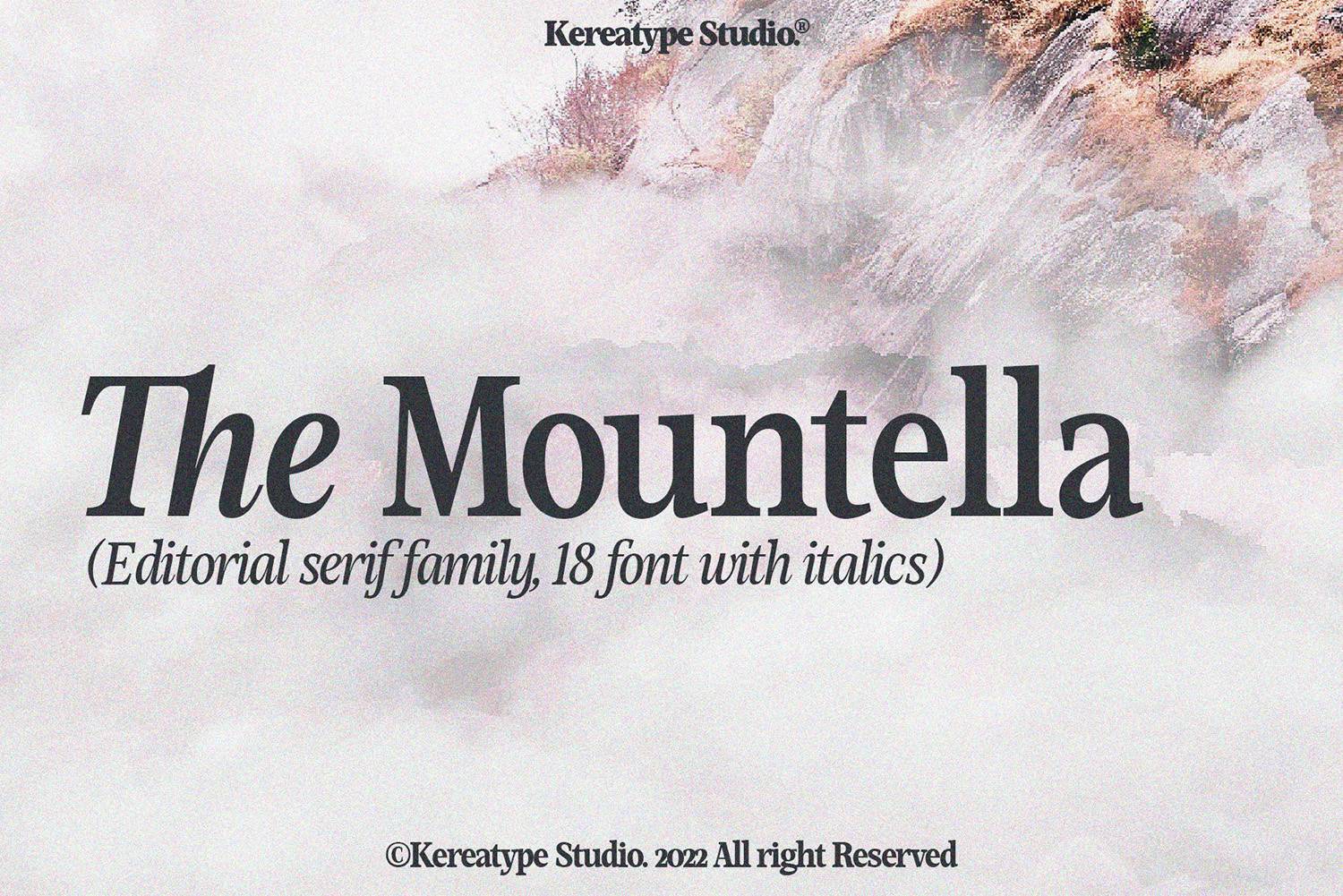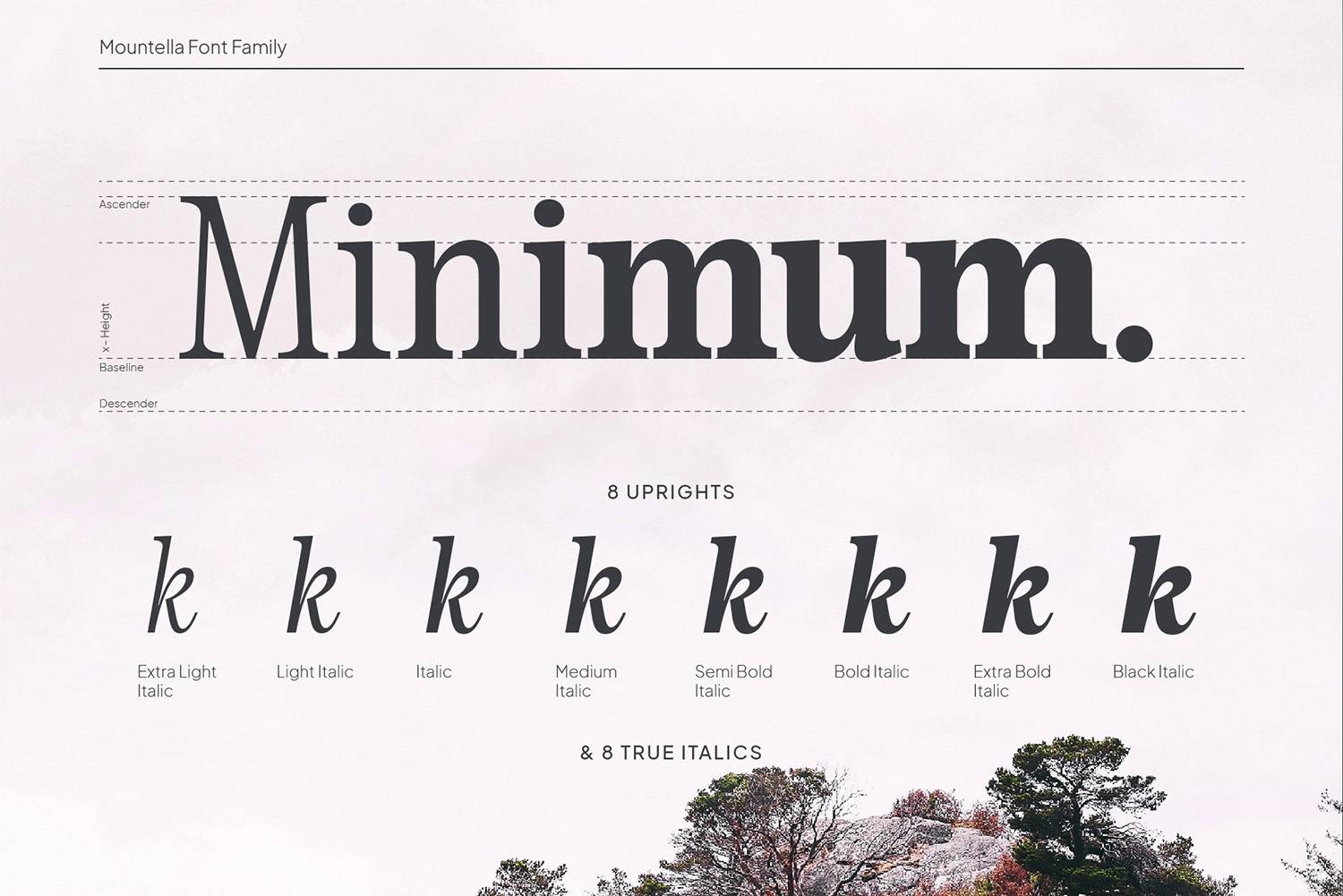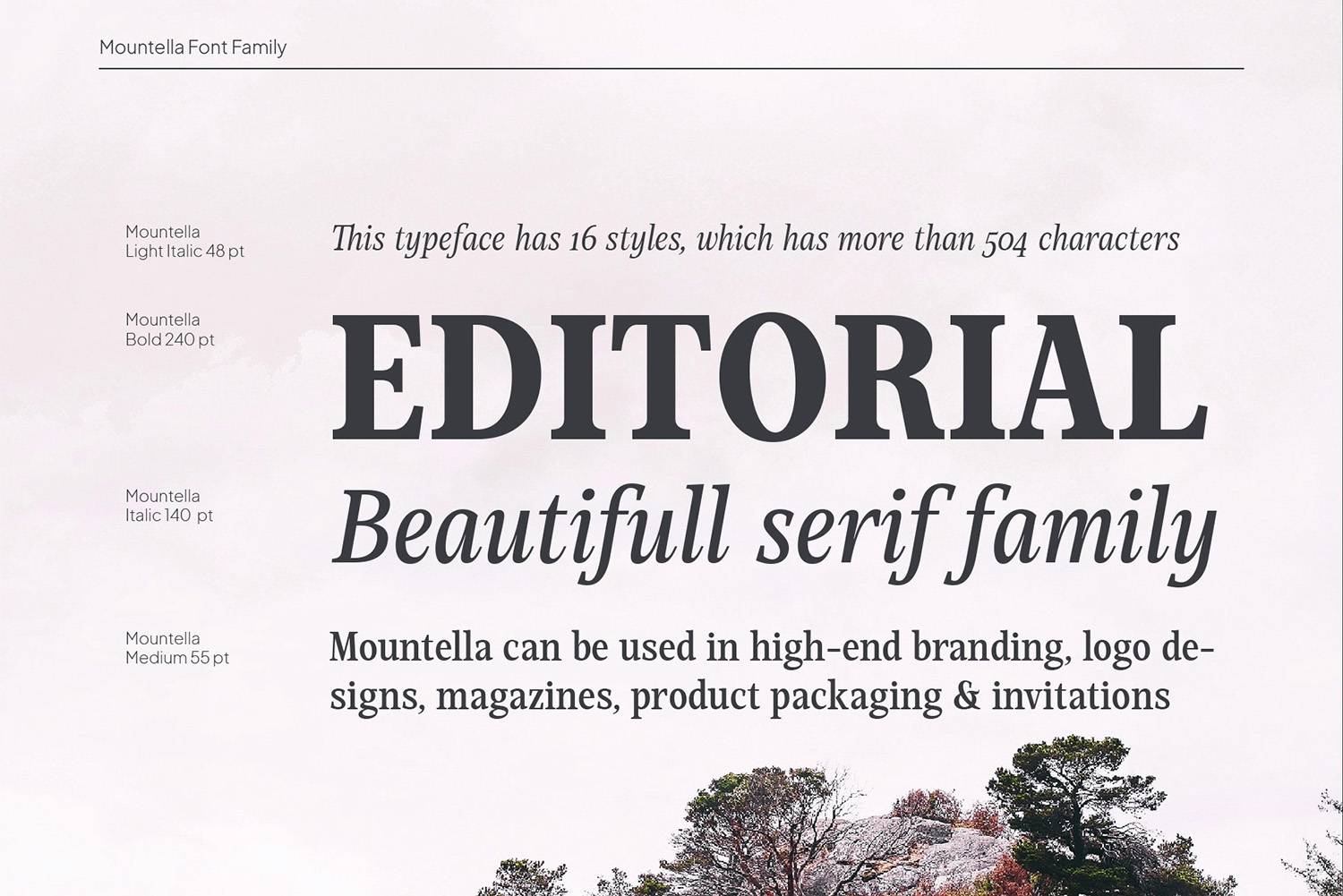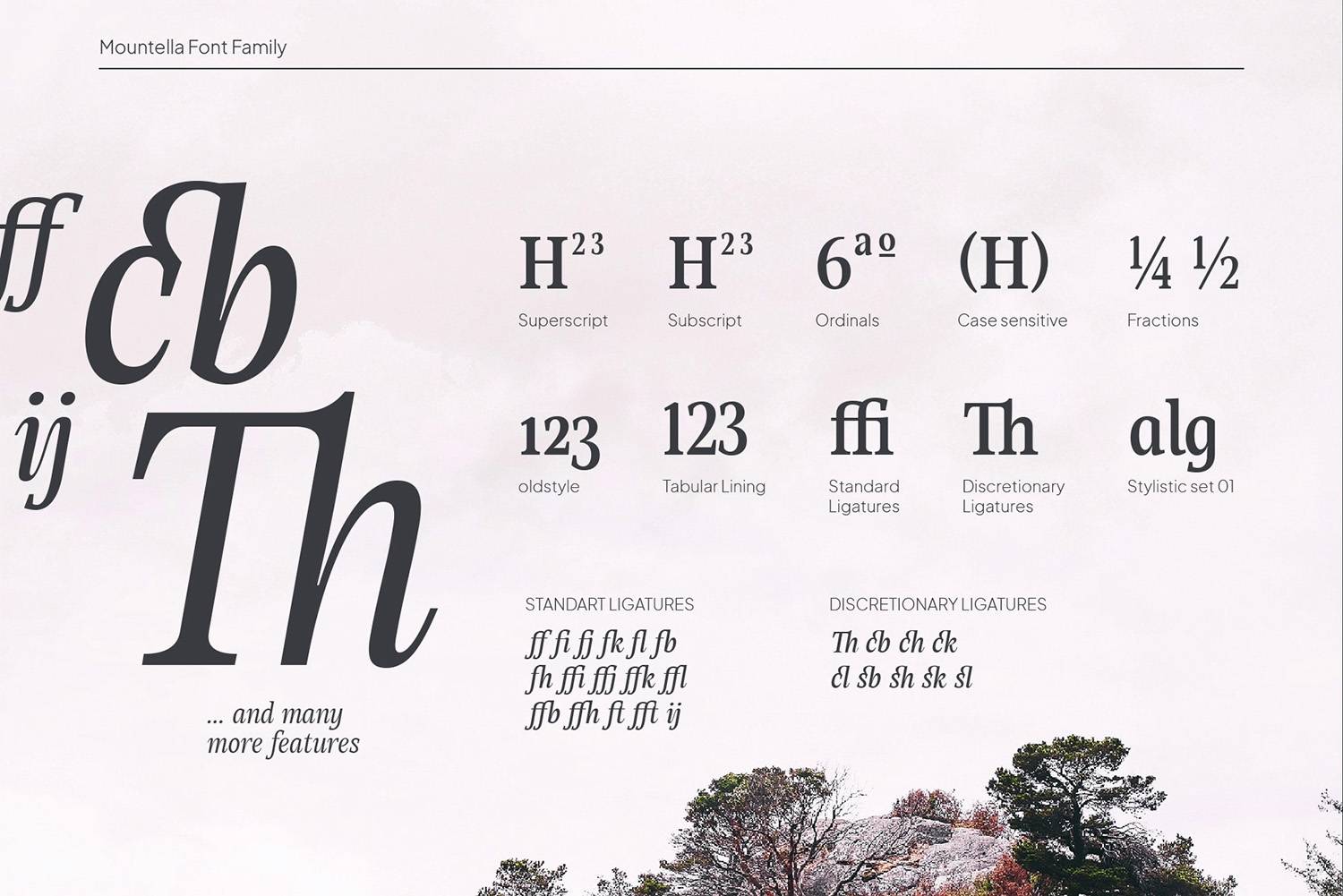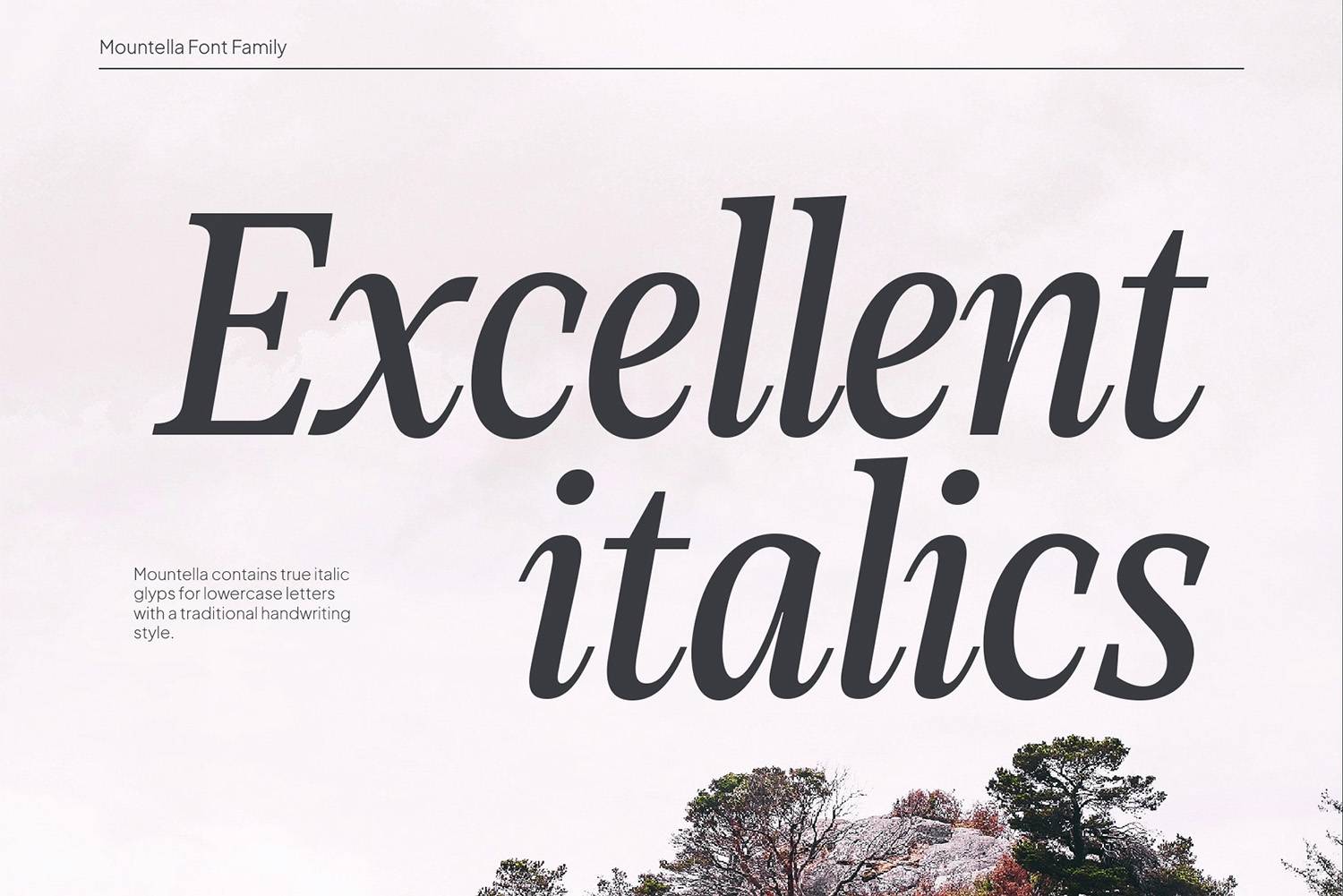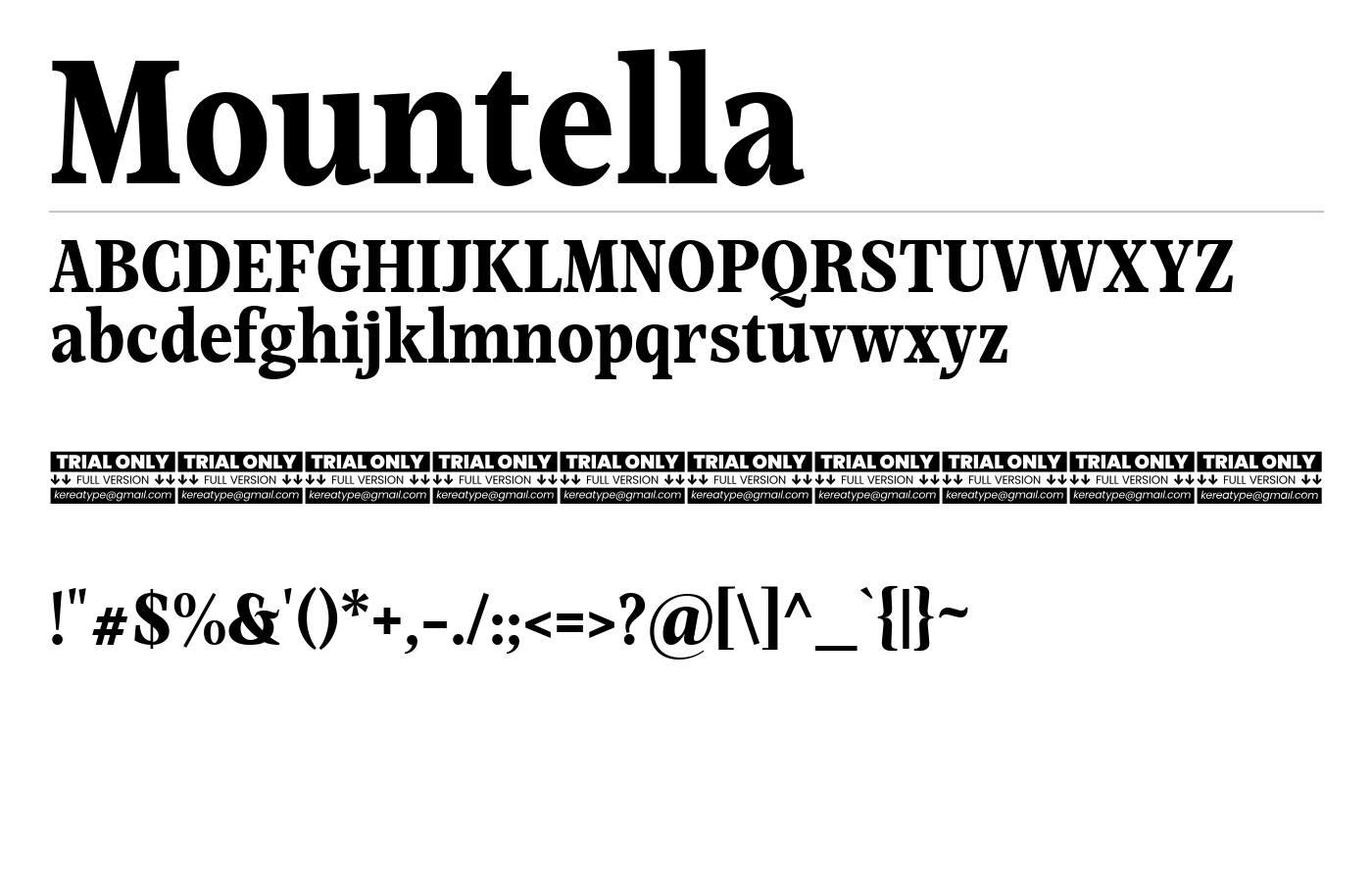
Mountella is a bold slab serif font with strong, thick serifs that convey a sense of solidity and authority. Its high contrast between thick and thin strokes, combined with a slightly condensed width and medium x-height, gives it a classic yet sturdy appearance, ideal for impactful headlines, branding, and editorial design where a confident and traditional look is desired. This font works particularly well for projects needing a vintage-inspired but commanding presence that is both legible and stylish.
Mountella Font
About Mountella Font